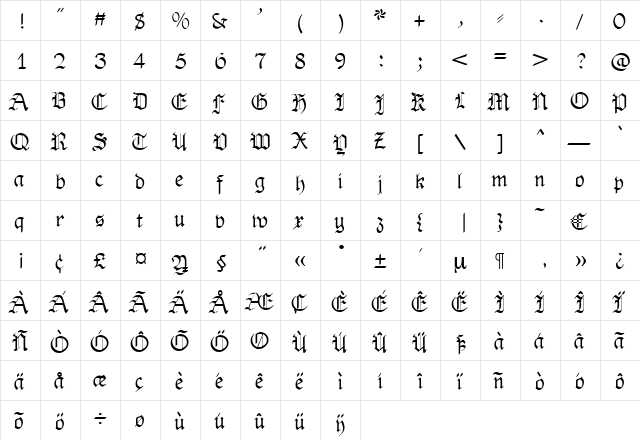
Tribune Regular
Design Context for Tribune Typeface
Tribune is a composed and adaptable typeface that performs quietly and consistently across a wide range of design contexts.